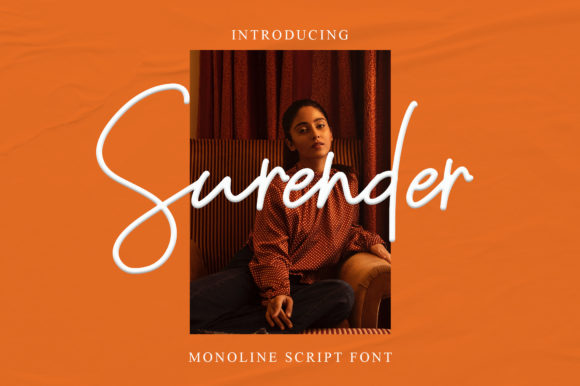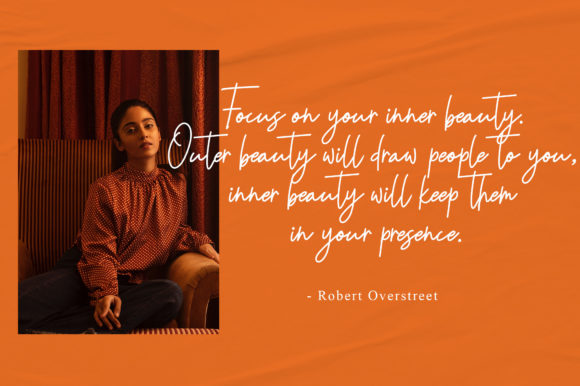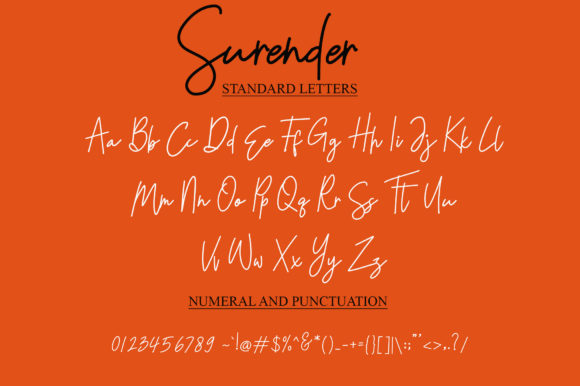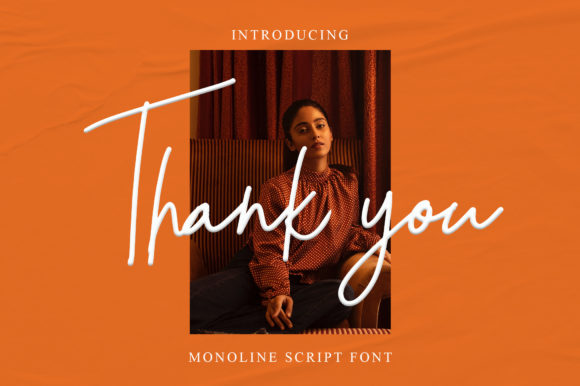
Surender Font
About Surender Font
Surender is a thin and beautiful handwritten font. Its distinct and well-rounded letters make this font a masterpiece. Fall in love with its incredibly versatile style and use it to create spectacular designs!